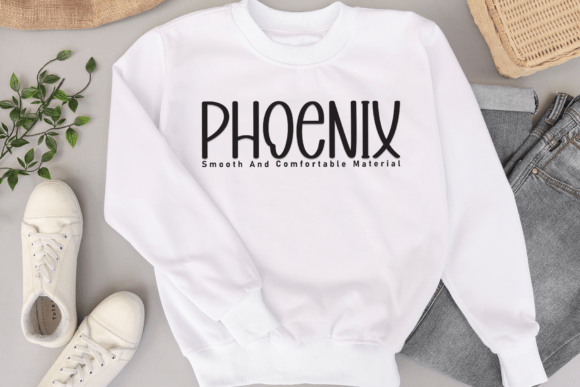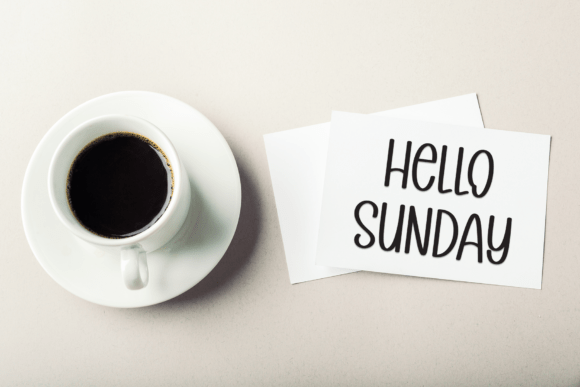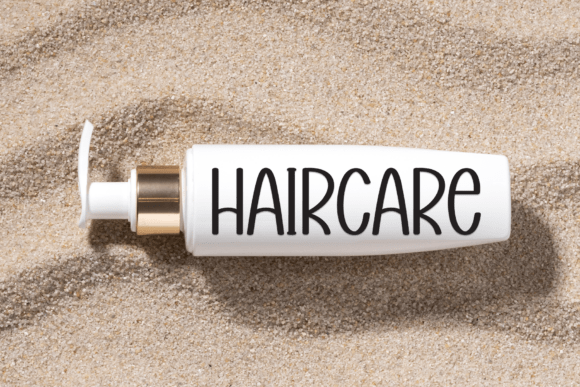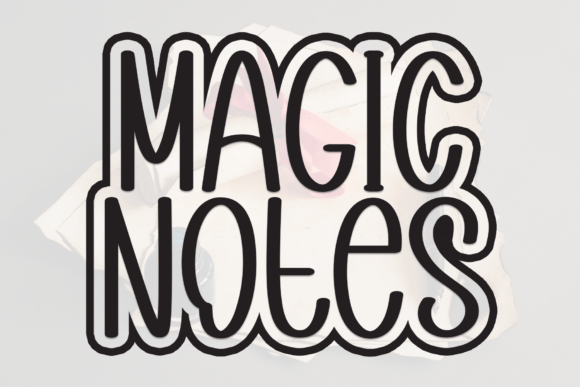
Introduction to Magic Notes Font
Magic Notes is a casual and neat display font designed to bring warmth and clarity to your projects.
With its clean structure and approachable style, it suits branding, headlines, and everyday designs The balanced letterforms offer readability and charm, making every message feel genuine and inviting.
Key Features of Magic Notes Font
Why Choose Magic Notes Font?